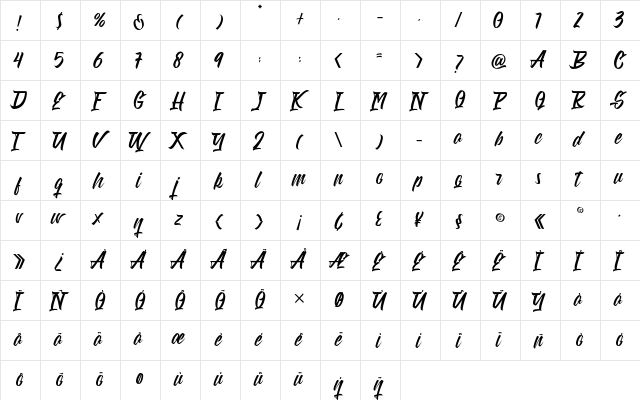
Weathertop Regular
| Foundry | Typotopia |
| Designer | Typotopia |
Design Context for Weathertop Typeface
Weathertop is a composed and adaptable typeface that performs quietly and consistently across a wide range of design contexts.